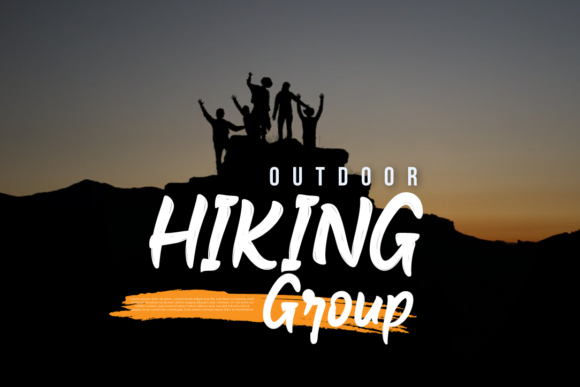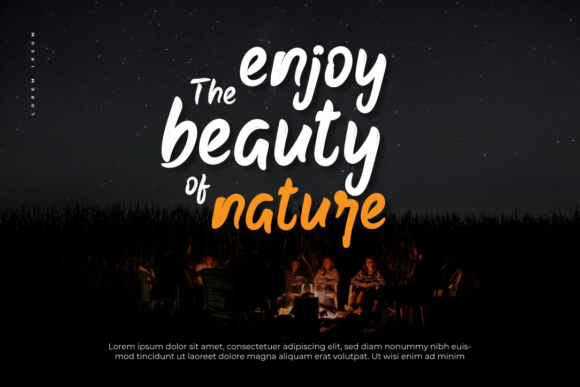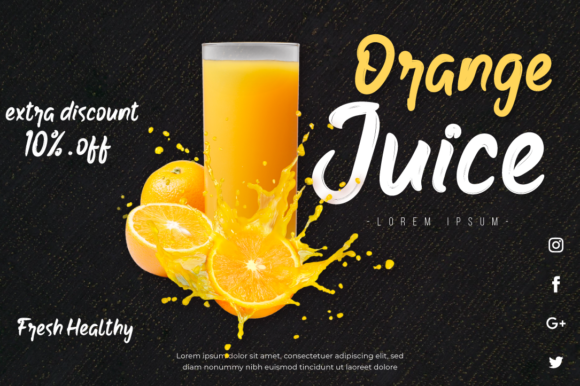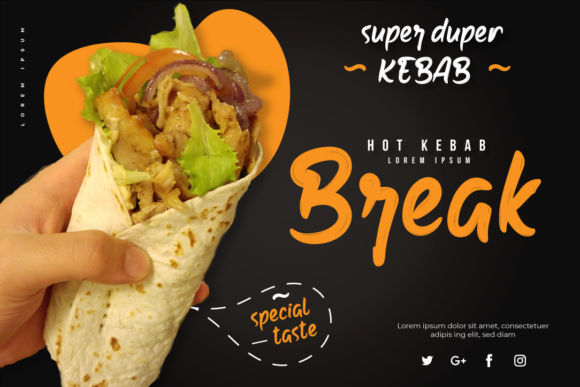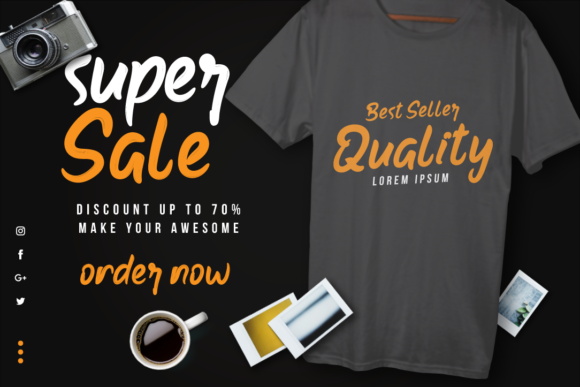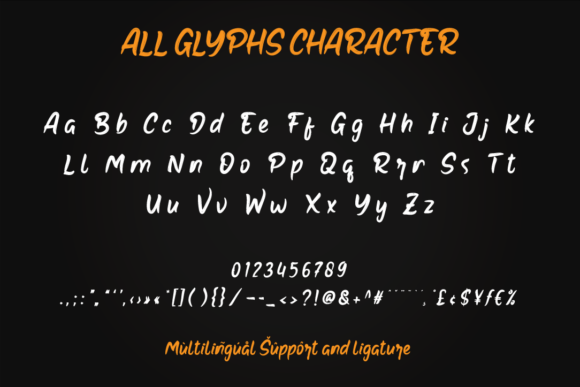
Introducing Abreact Font: Unleash Your Creativity with this Stunning Brush Handwritten Font
In the world of design, typography plays a crucial role in conveying messages, expressing emotions, and creating lasting impressions. For designers and crafters, finding the perfect font can be a daunting task, especially when it comes to creating unique and outstanding designs. This is where Abreact Font comes in – a beautiful brush handwritten font that is sure to elevate your designs to the next level.
What is Abreact Font?
Abreact is a brush handwritten font that boasts a distinctive, hand-crafted look. Its unique texture and fluid strokes give it a personal touch, making it perfect for designs that require a human feel. Whether you’re working on a branding project, advertisement, or social media post, Abreact Font is sure to add a touch of elegance and sophistication.
What Makes Abreact Font Special?
So, what sets Abreact Font apart from other fonts? Here are a few reasons why this font is a must-have for designers and crafters:
- Unique and Original: Abreact Font is a one-of-a-kind font that will help you stand out from the crowd. Its distinctive look and feel will add a touch of personality to your designs.
- Versatile: This font is incredibly versatile and can be used for a wide range of projects, including branding, advertising, posters, banners, packaging, podcasts, outdoor activities, apparel, quotes, beverages, and more.
- Easily Readable: Despite its handwritten nature, Abreact Font is surprisingly easy to read, making it perfect for body text and captions.
- Customizable: With its extensive range of characters and symbols, you can customize Abreact Font to fit your design needs.
Use Cases for Abreact Font
Abreact Font is an incredibly versatile font that can be used in a variety of contexts. Here are some use cases to get you started:
- Branding: Use Abreact Font to create a unique and memorable brand identity that reflects your company’s personality.
- Advertising: Add a touch of elegance and sophistication to your ads with Abreact Font.
- Posters and Banners: Create eye-catching posters and banners that grab attention with Abreact Font.
- Packaging: Use Abreact Font to add a personal touch to your product packaging.
- Podcasts: Create engaging and memorable podcast titles and descriptions with Abreact Font.
- Apparel: Use Abreact Font to create stylish and eye-catching apparel designs.
Tips for Using Abreact Font
To get the most out of Abreact Font, here are some tips to keep in mind:
- Experiment with Colors: Abreact Font looks great in a variety of colors, so don’t be afraid to experiment and find the perfect hue for your design.
- Mix and Match: Combine Abreact Font with other fonts to create a unique and visually appealing design.
- Pay Attention to Kerning: Make sure to adjust the kerning to ensure that your text looks balanced and visually appealing.
| Font Name | Abreact Font |
| Author | Productype |
In conclusion, Abreact Font is a stunning brush handwritten font that is sure to elevate your designs to the next level. Its unique texture, fluid strokes, and versatility make it perfect for a wide range of projects. Whether you’re a designer, crafter, or DIY enthusiast, Abreact Font is a must-have font that will help you create original and outstanding designs.